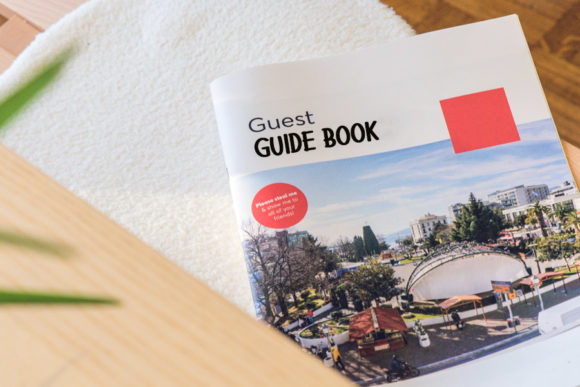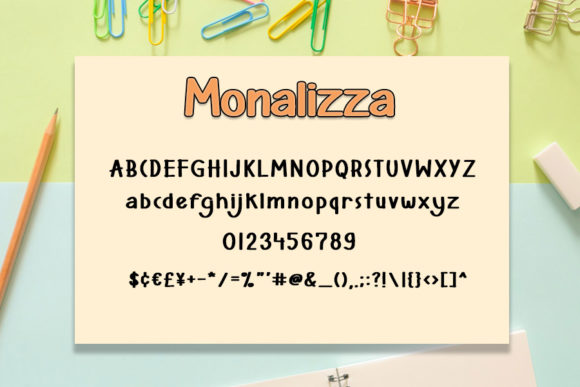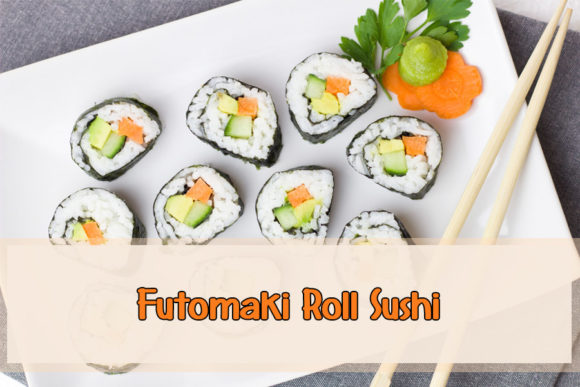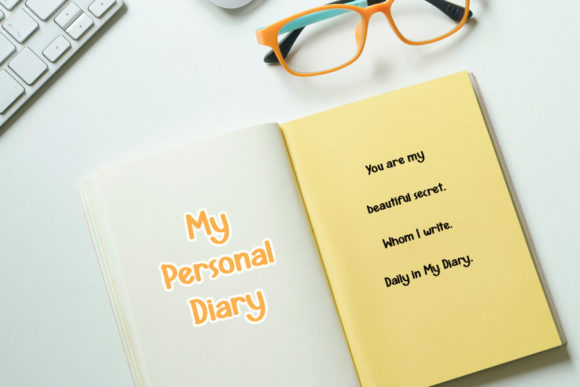
Monalizza Font
About Monalizza Font
Monalizza is a sweet and clean handwritten font. This font would be ideal for writing web designs, business cards, or pretty much anything else that requires a unique touch.